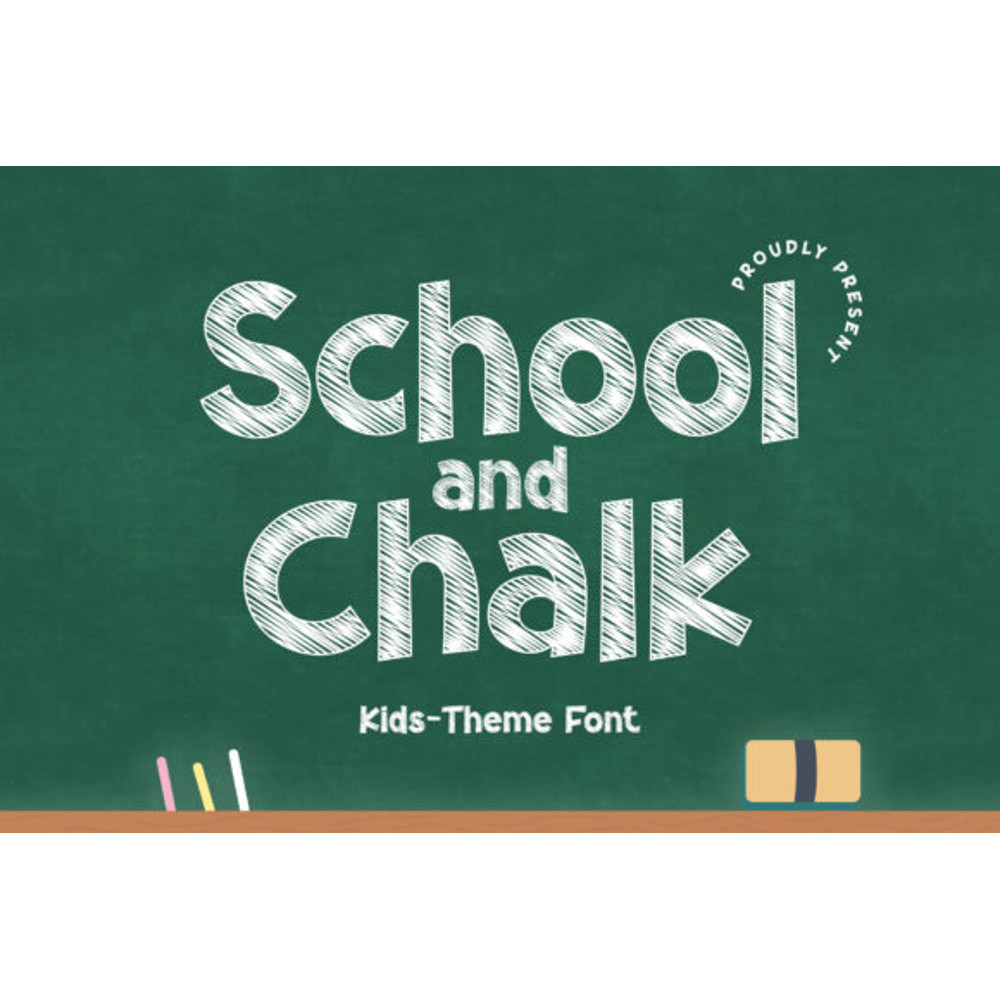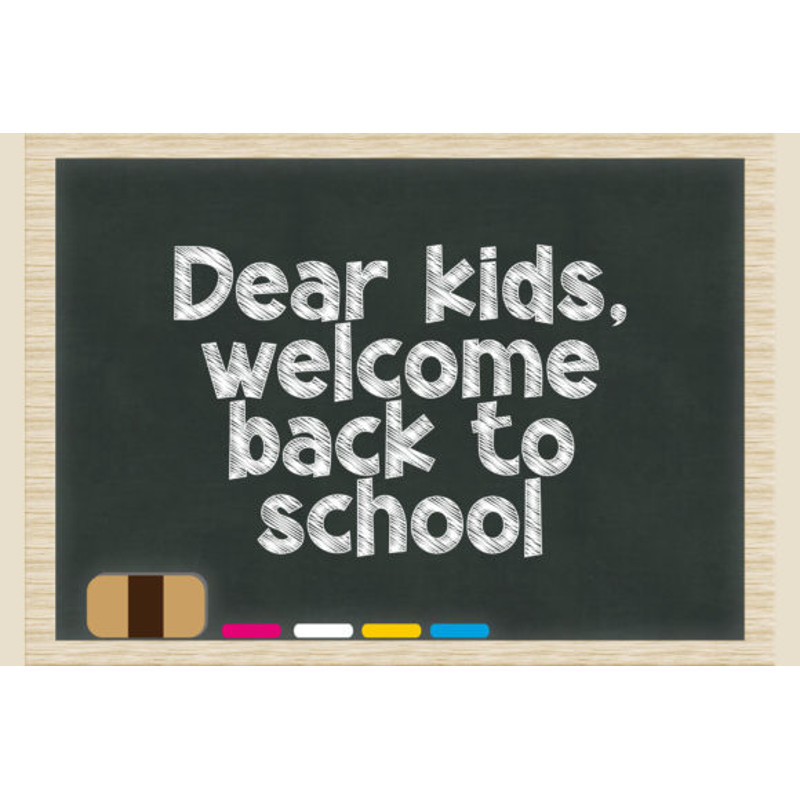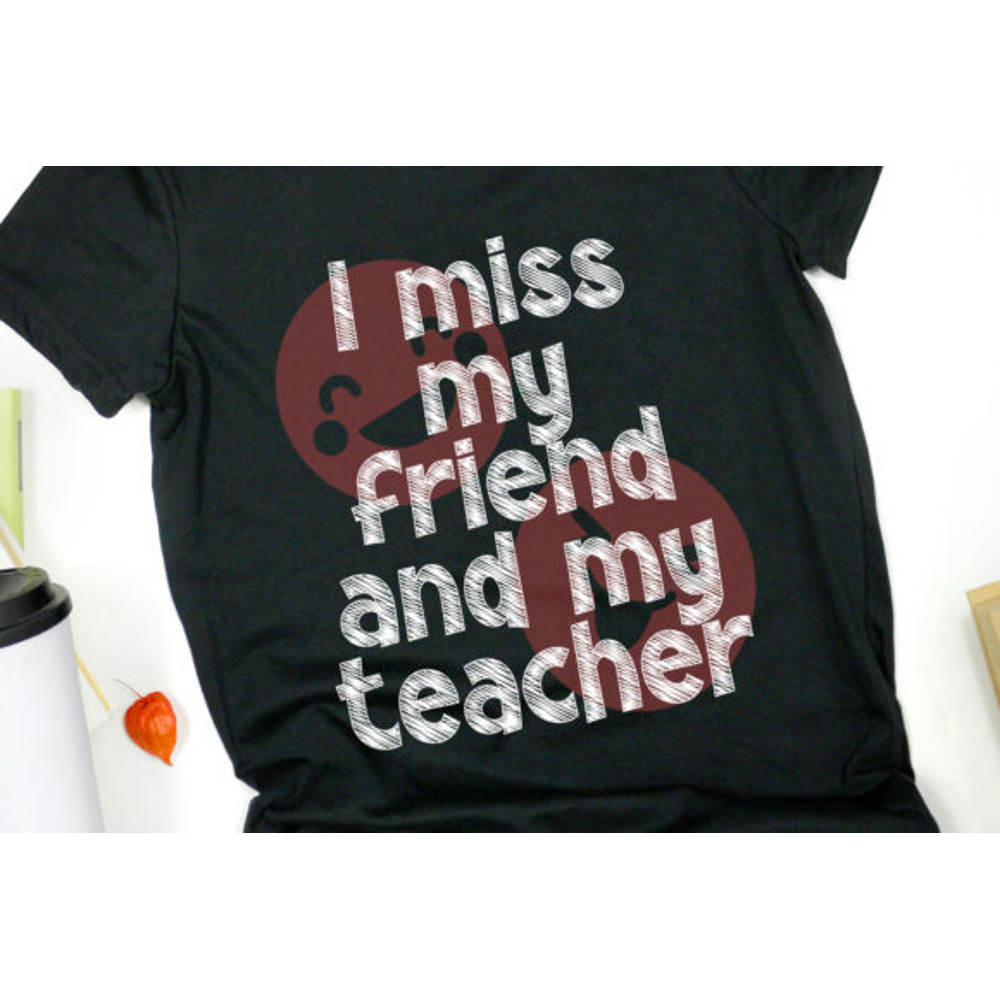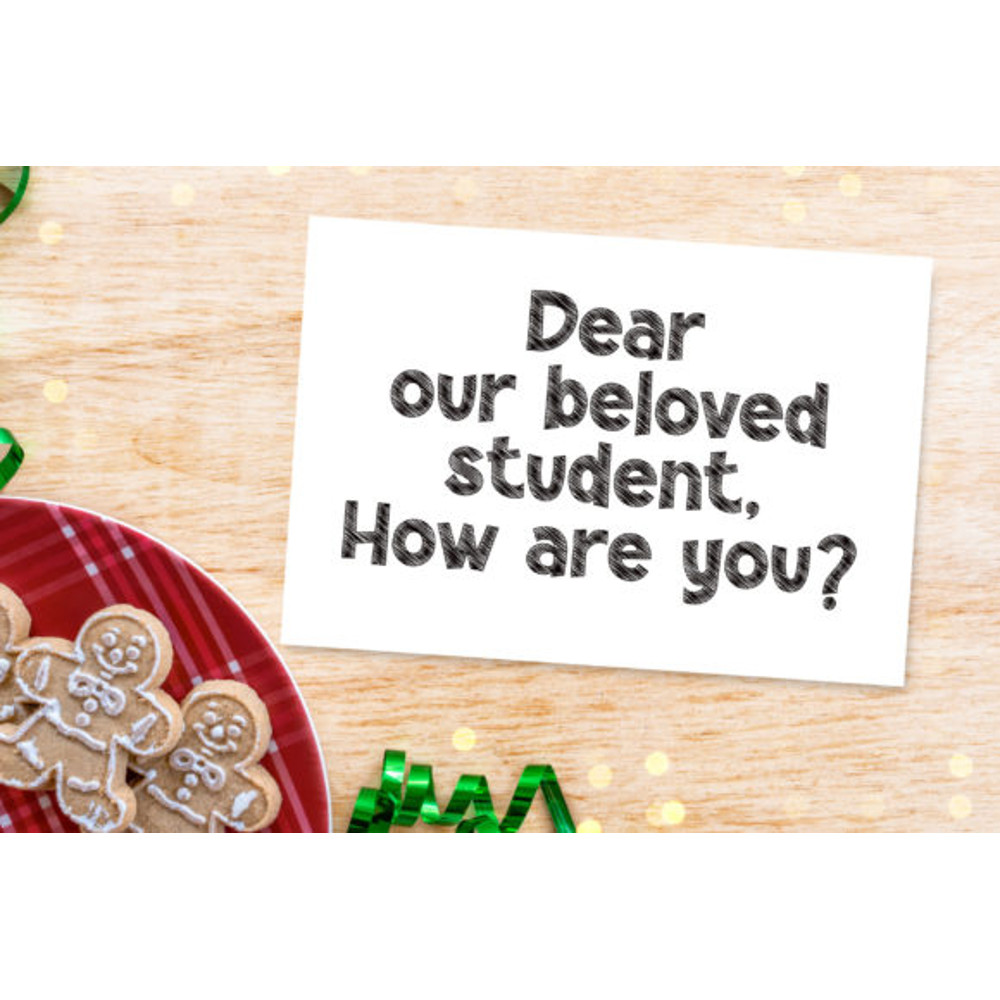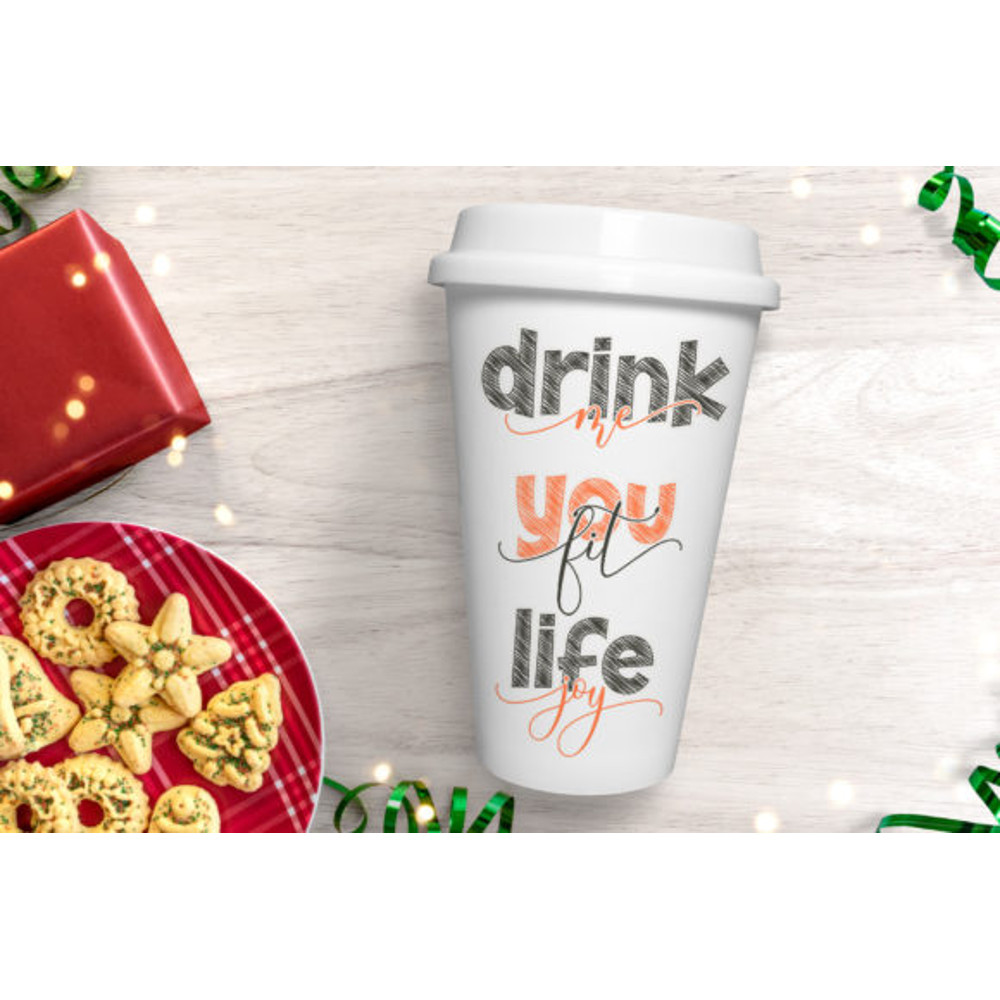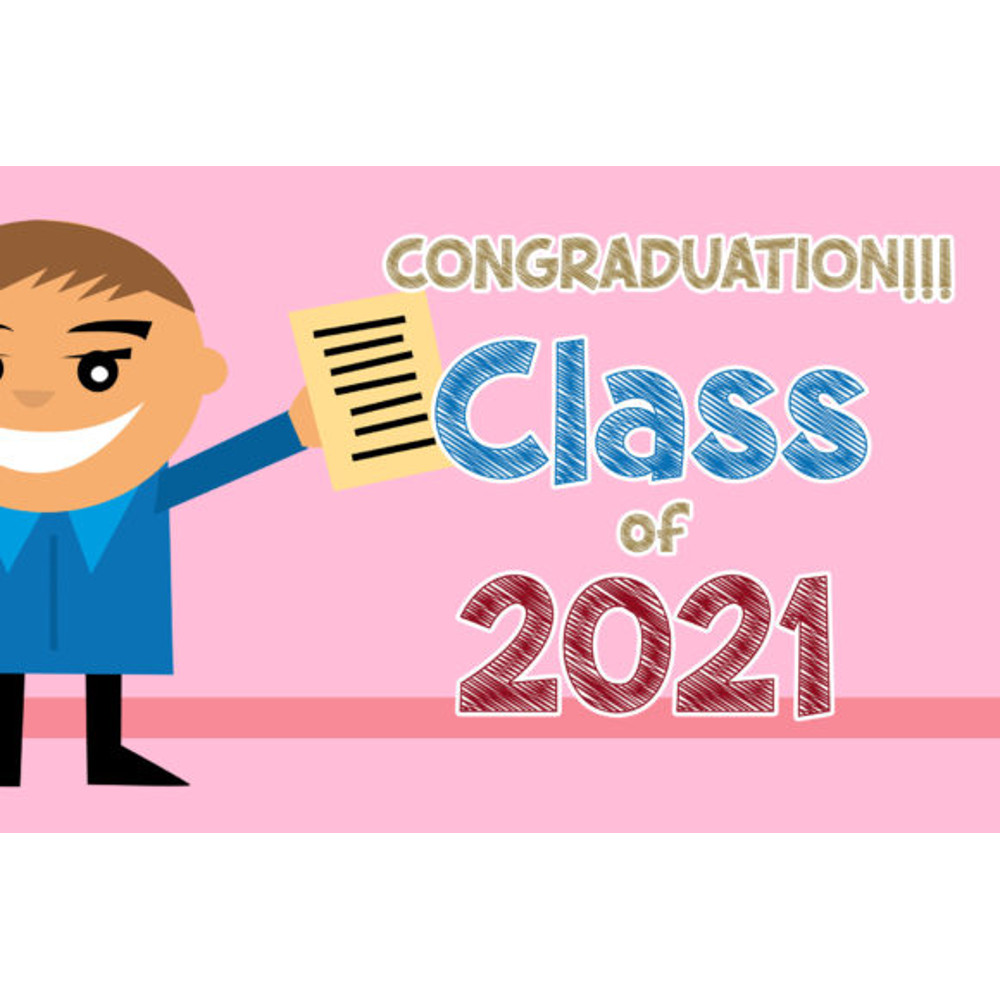
School and Chalk Font
School and Chalk is a cute and simple lettered display font that can be used for all chalkboard quotes or teaching material! Its authentic look will add a personal and realistic feel to your designs.